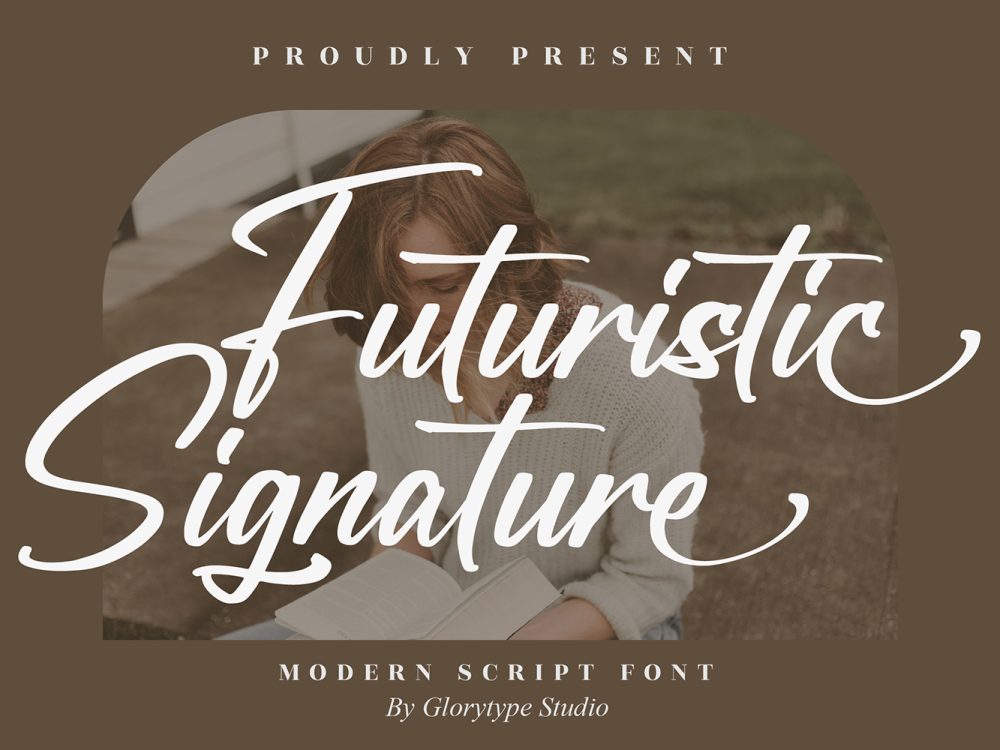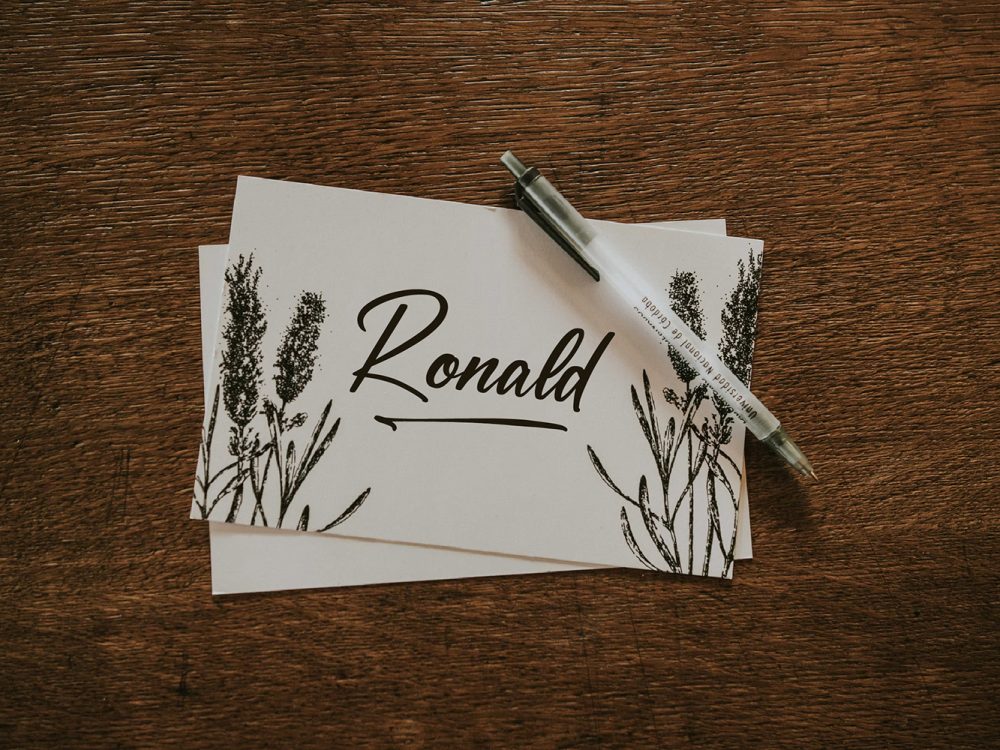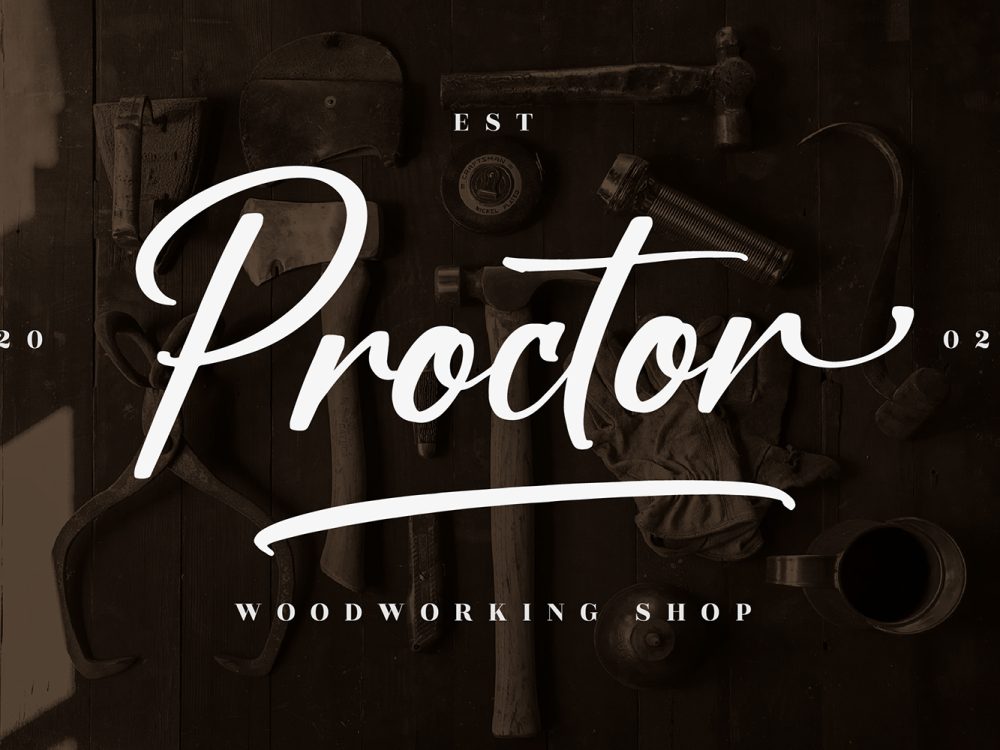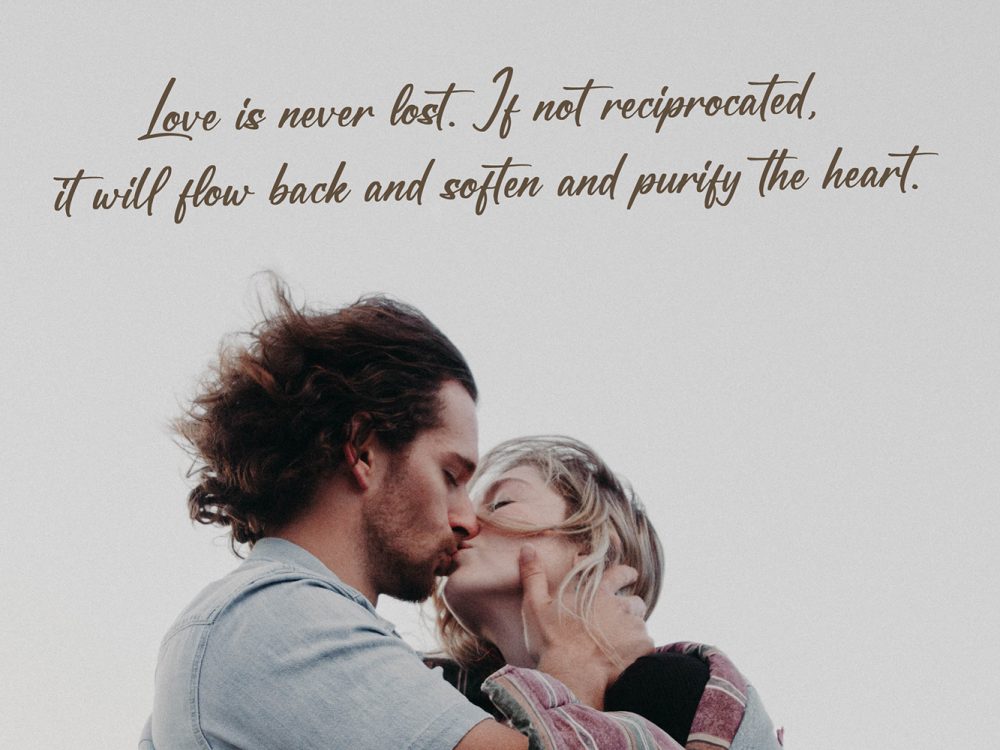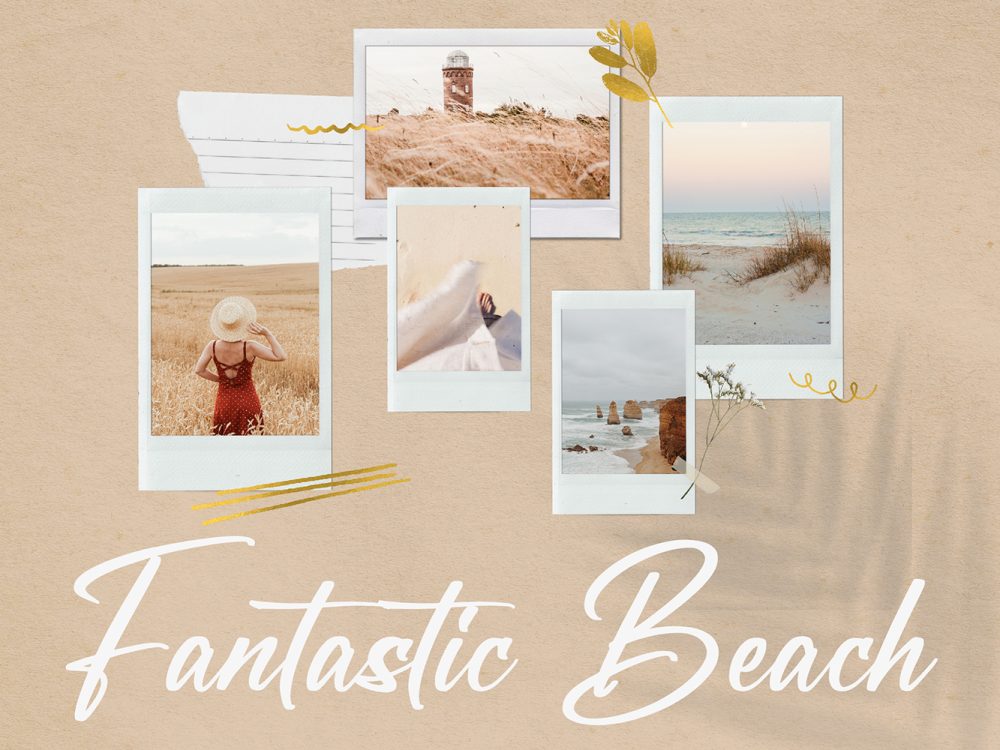
Futuristic Stylish Free Font
Futuristic Stylish Free Font is a delightfully romantic calligraphy typeface, where characters gracefully waltz along the baseline. Infuse a touch of opulent allure into your envisioned design projects with this font’s luxurious charm. If you like it don’t forget to check out the full version.